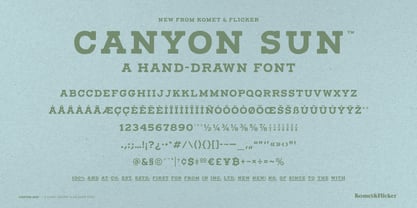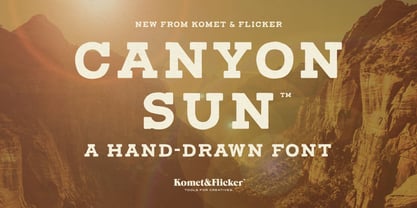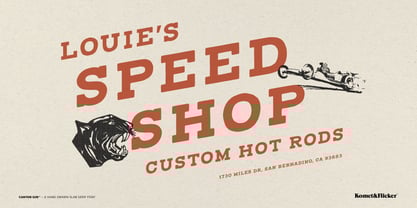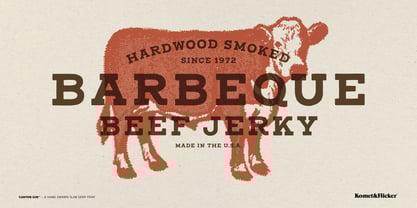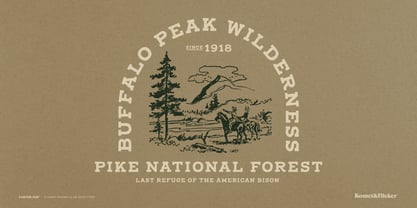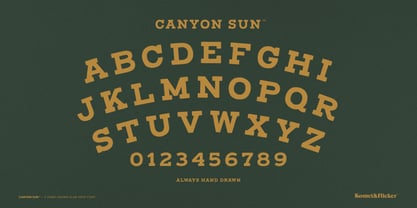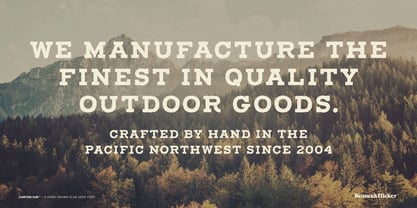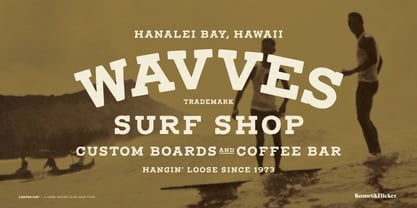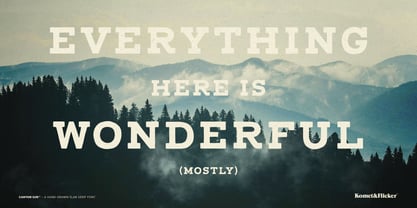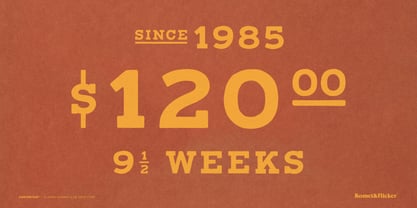
Canyon Sun
by Komet & Flicker
The Canyon Sun Font Family was designed by David Phillips and published by Komet & Flicker. Canyon Sun contains 1 styles.
Say hello to Canyon Sun, a charming all caps slab serif font with a friendly, down-to-earth vibe. Crafted to be casual and approachable, this typeface brings a warm, human touch to your projects – perfect for anything from playful branding to relaxed layouts.
This font has been hand-drawn, giving the font an organic, slightly imperfect personality that makes it feel truly unique. Canyon Sun also comes with a set of 20 custom connecting words (like AND, THE, WITH) designed to integrate with the rest of your text for added flair.
THIS FONT INCLUDES
• Full A-Z uppercase basic latin characters
• Select European specific characters
• Numbers, punctuation, and select symbols
• Two styles of pre-made common fractions
• Set of 20 custom connecting word glyphs
Designers: David Phillips
Publisher: Komet & Flicker
Foundry: Komet & Flicker